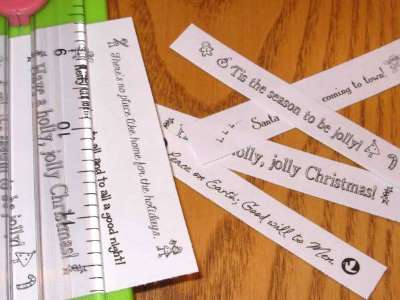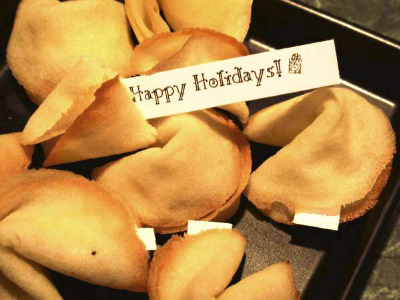
It's
almost here! If you are ready and waiting for the big day,
take the extra time to enjoy all the season has to offer.
more cute, wintery designs in this newsletter, and a fun
way to add Lettering Delights touches to your baking.
All the preparations – the gifts, the shopping,
the wrapping, the baking, the cards, the parties, the decorating – are
coming to an end. It's time to sit back and enjoy the lights,
the music, the smells, the joy, the family, the friends
and the surprises. Whether your celebrations will be large
or small, I hope you have a very Merry Christmas and enjoy
the best of the season with family, friends and loved ones.
| The Christmas
season is practically synonymous with baking and the Christmas
cookie is most often what keeps us at the oven. Cookie
exchanges are a popular way to share the baking tasks with
friends and when my invitation to participate arrived this
year I decided that I wanted to make something really unique.
You are probably wondering how my baking a cookie could
be a part of this month's creative corner but there is
a method to my madness. I decided to make fortune cookies
so Lettering Delights fonts and some fun holiday DoodleBats became an important part of the plan.
The fortunes are printed on 3”x ½” strips
of paper. I used a word processing program, dividing my
sheet into two 3” columns. I chose seven different
holiday wishes; you could choose more or just one so they
are all the same. Each fortune is in a different festive
font and then for a little something extra, I added a decorative
DoodleBat to the beginning and end of each fortune.
Once you have the fortune(s) decided on and formatted,
just copy and paste to fill both columns on your page,
print and trim to size. It's that easy! They don't all
have to be exactly the same so don't stress about perfect
spacing. I used all black ink for easy reading in such
a small size but adding color would add even more fun to
these festive fortunes. You could also make larger cookies,
requiring larger fortunes and allowing for even more creativity.
The Happy Holidays fortune featured in the
photo was made with font LD
Flourish and DoodleBat DB
Falalalala Doodles. Other 'fortunes' included:
Rani's Wintry Amusement Bundle |
Peeking. Make
tracks in fresh powder when you hit the slopes with Ski
Bunny. The temperatures may be low in Below
Freezing but
the woodland creatures are keeping warm in their own winter
wonderland of fun. Each Wintery Amusement design comes
as an alphabet, perfect for letters and titles, as well
as a Journaling Delight set, complete with matching clip
art images, borders and words to create delightful embellishments
and accents.
| Rani's Wintry Amusement Bundle is
Alphabet letters
make creative titles, headings and initials. Clip art,
borders and words in each matching Journaling Delight make
perfect accents and embellishments. You'll hang on every
word you can create with the new Charm Bundle.
'Tis the Season DoodleBats Bundle |
‘Tis the season for
DoodleBats! This bundle is bursting with holiday cheer
in the form of festive words, doodles, and decorations.
Use these DoodleBats to decorate holiday greeting cards,
place cards at your holiday meal, or scrapbook layouts.
The possibilities are endless!